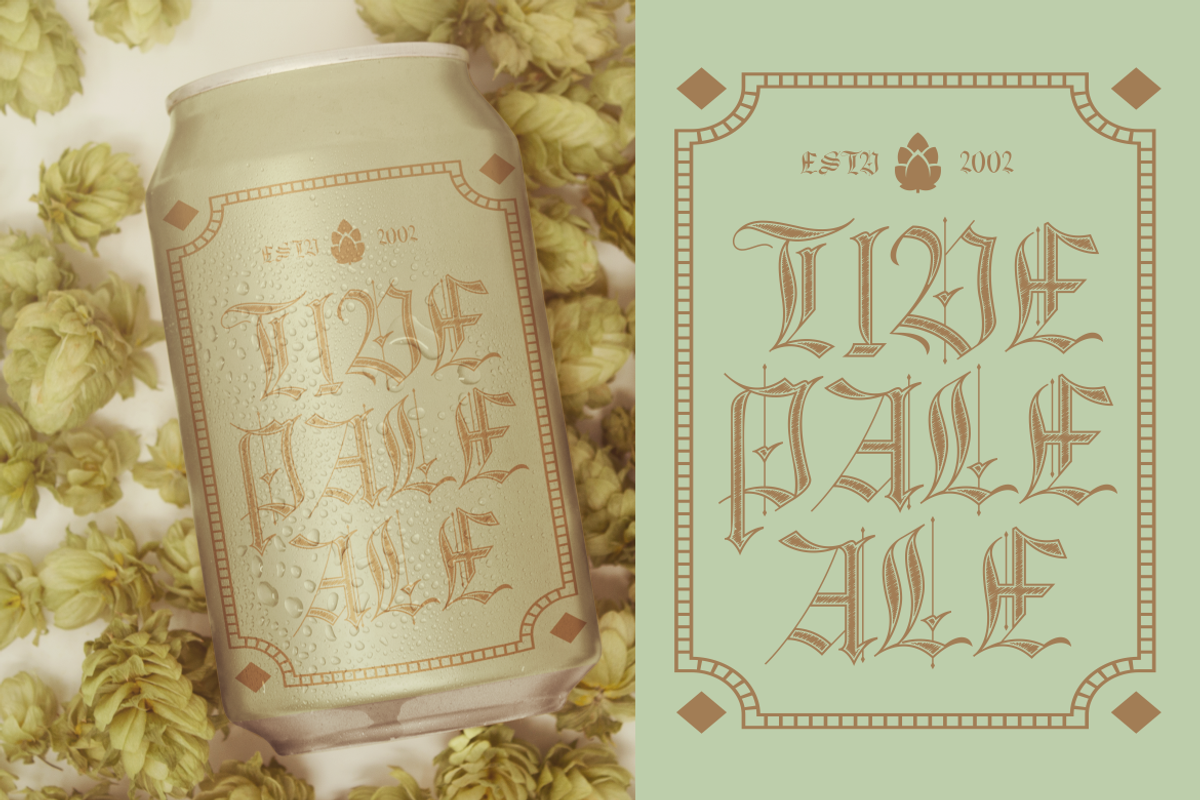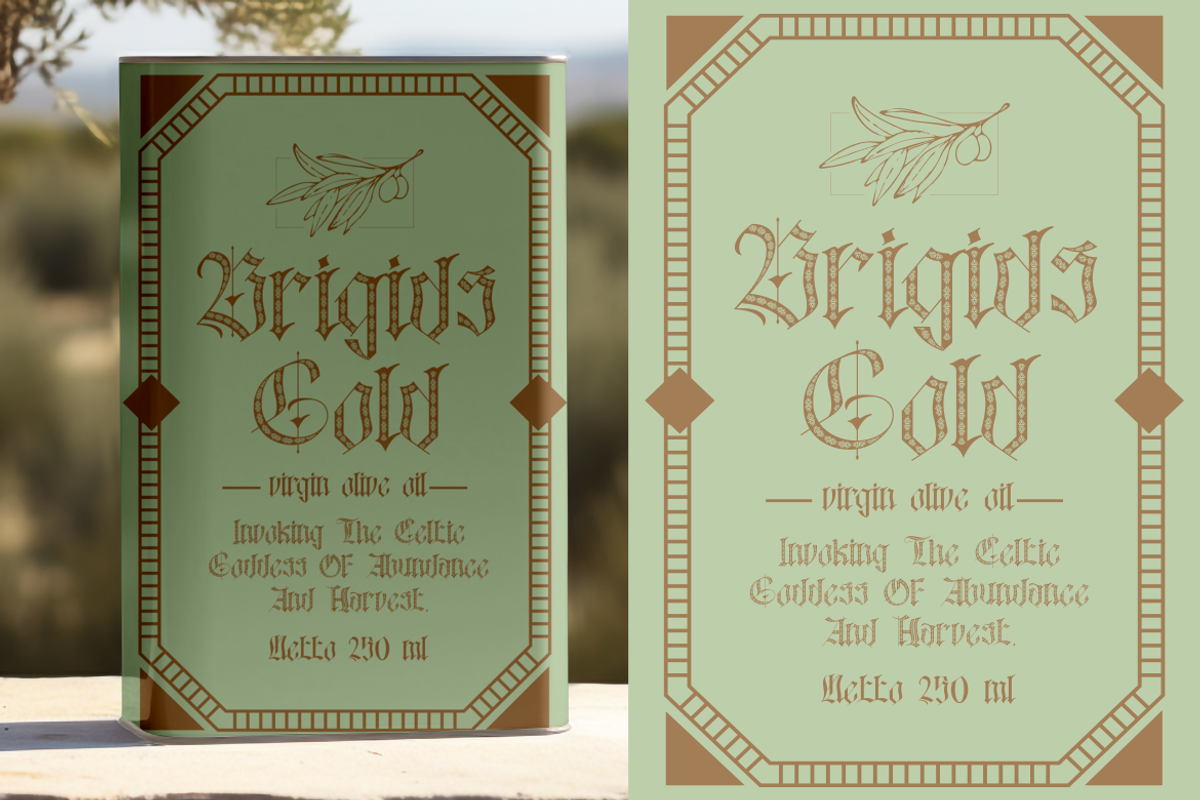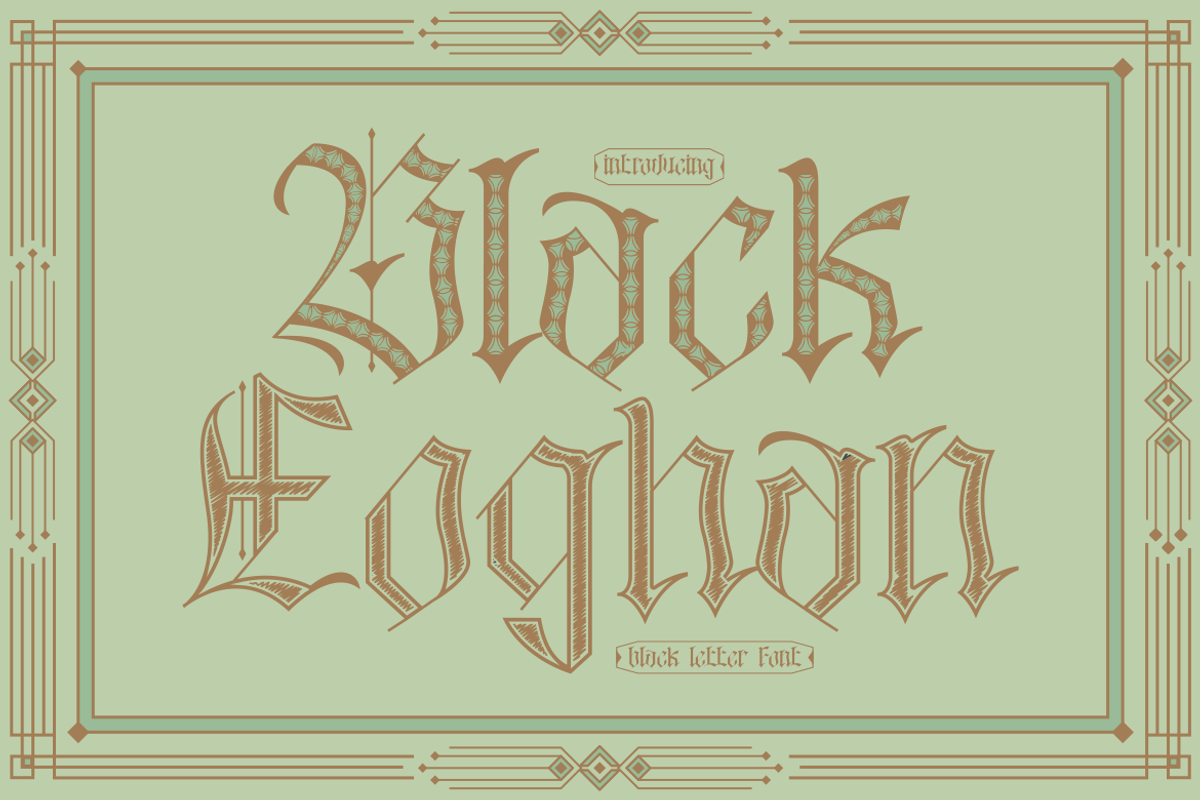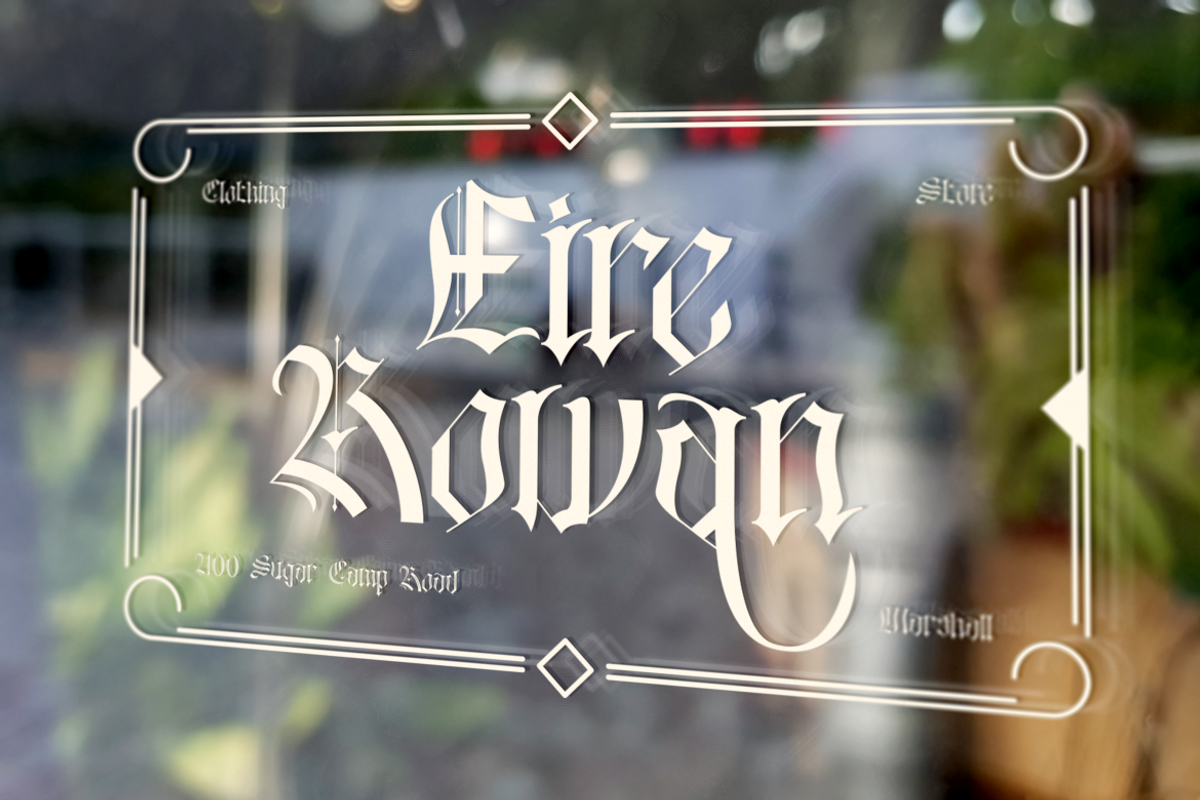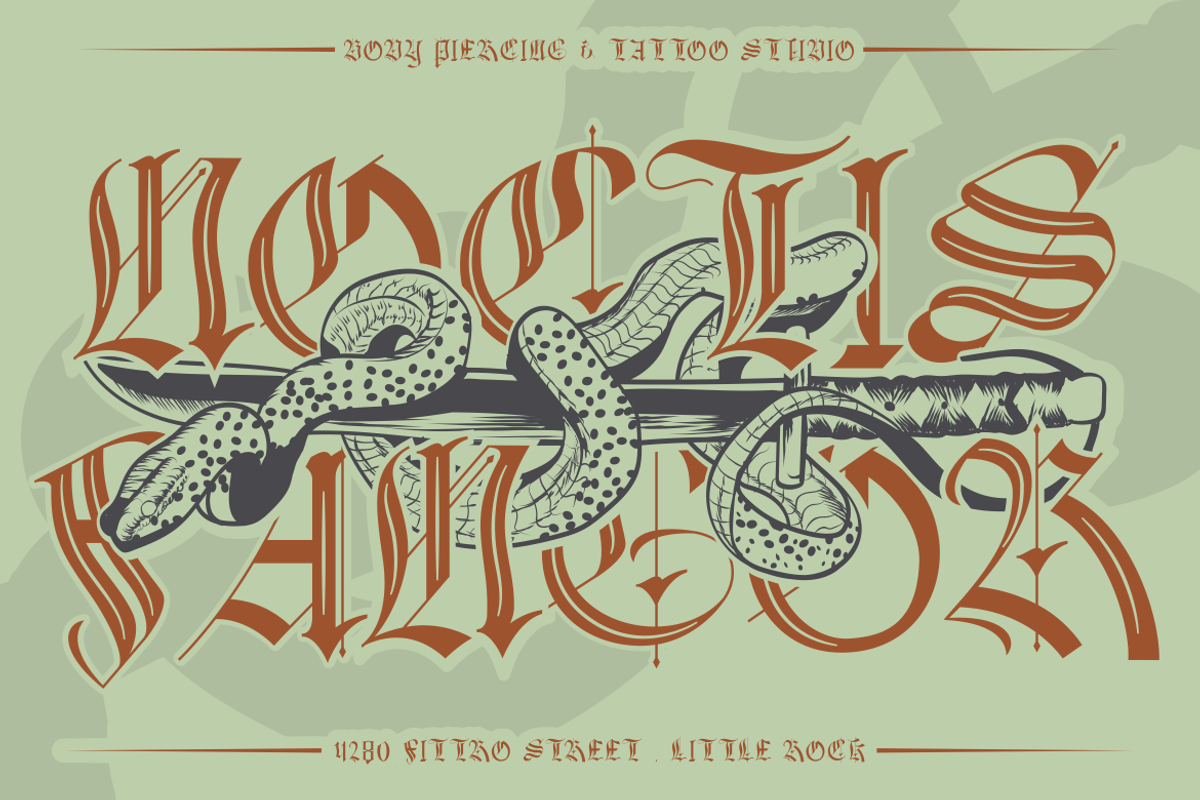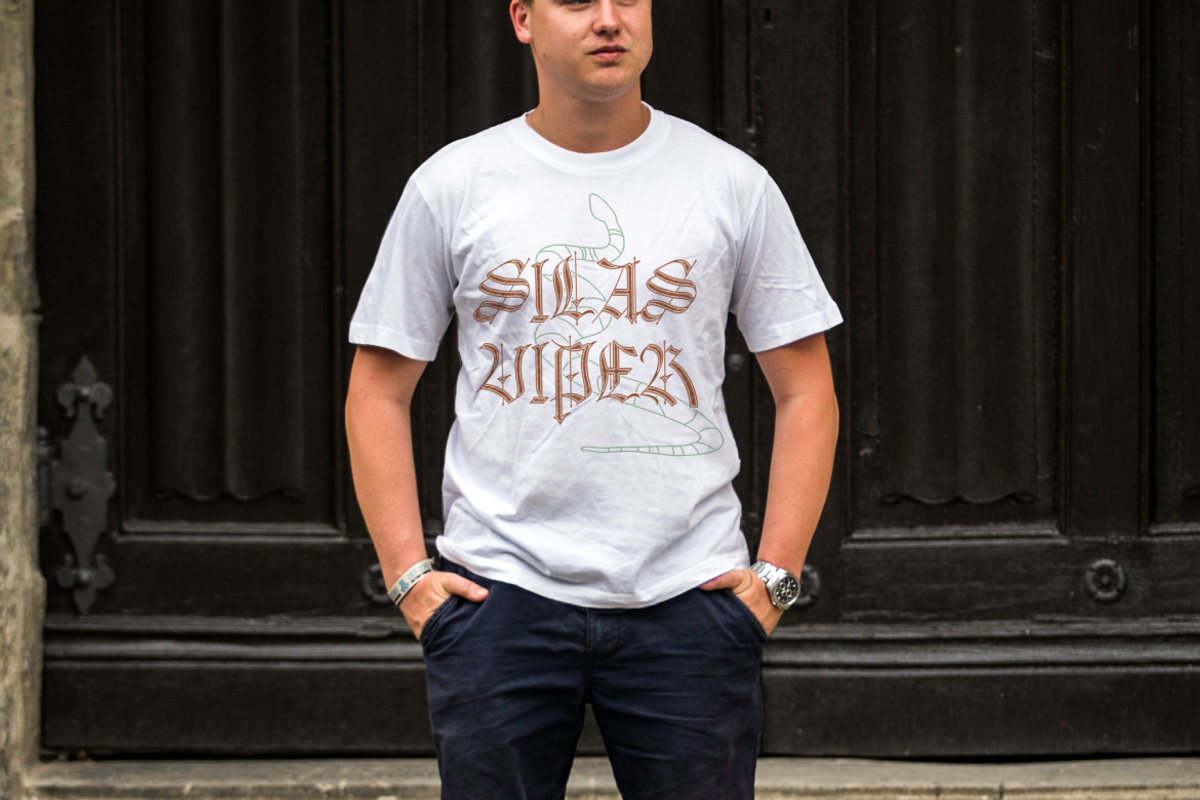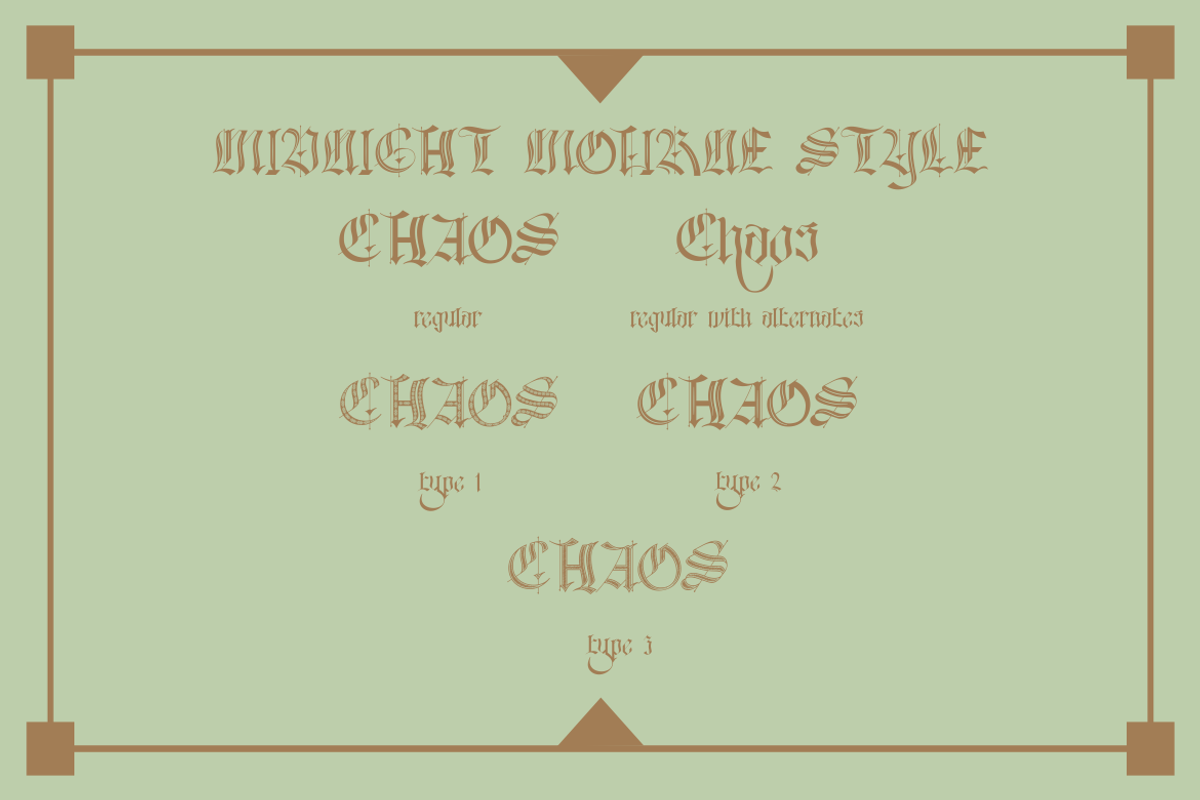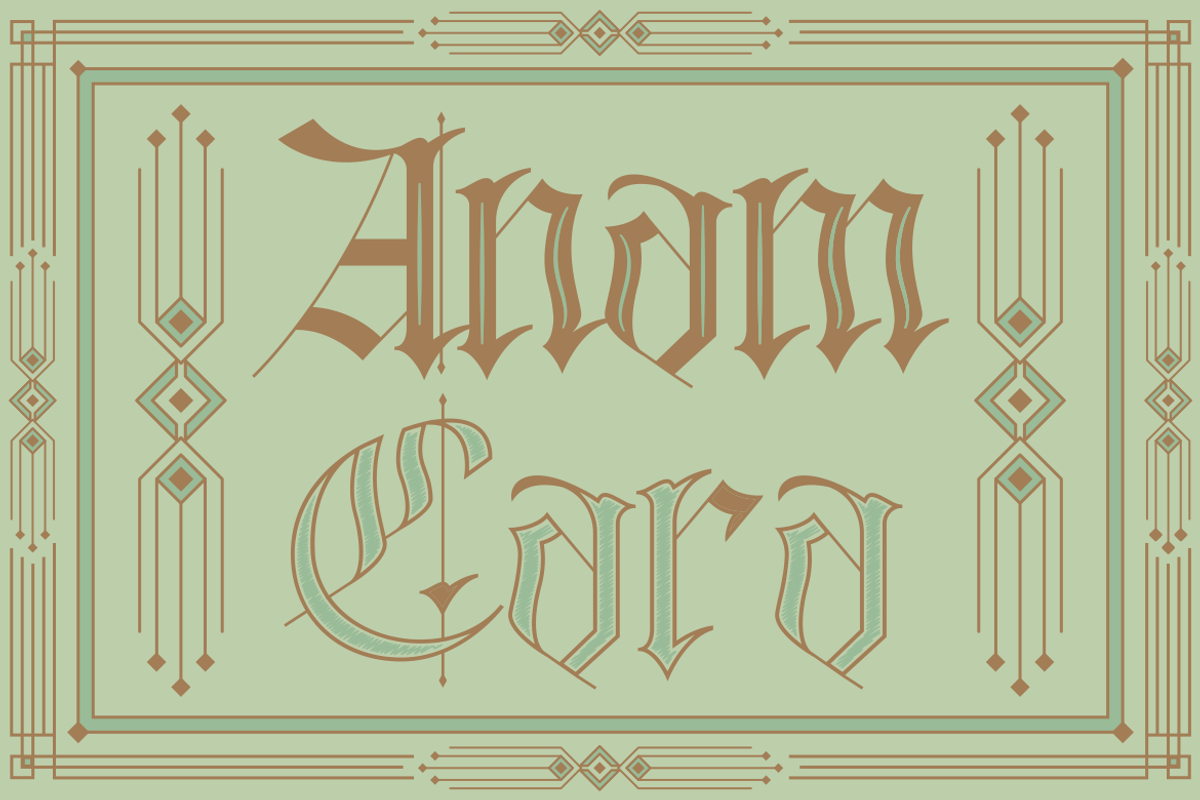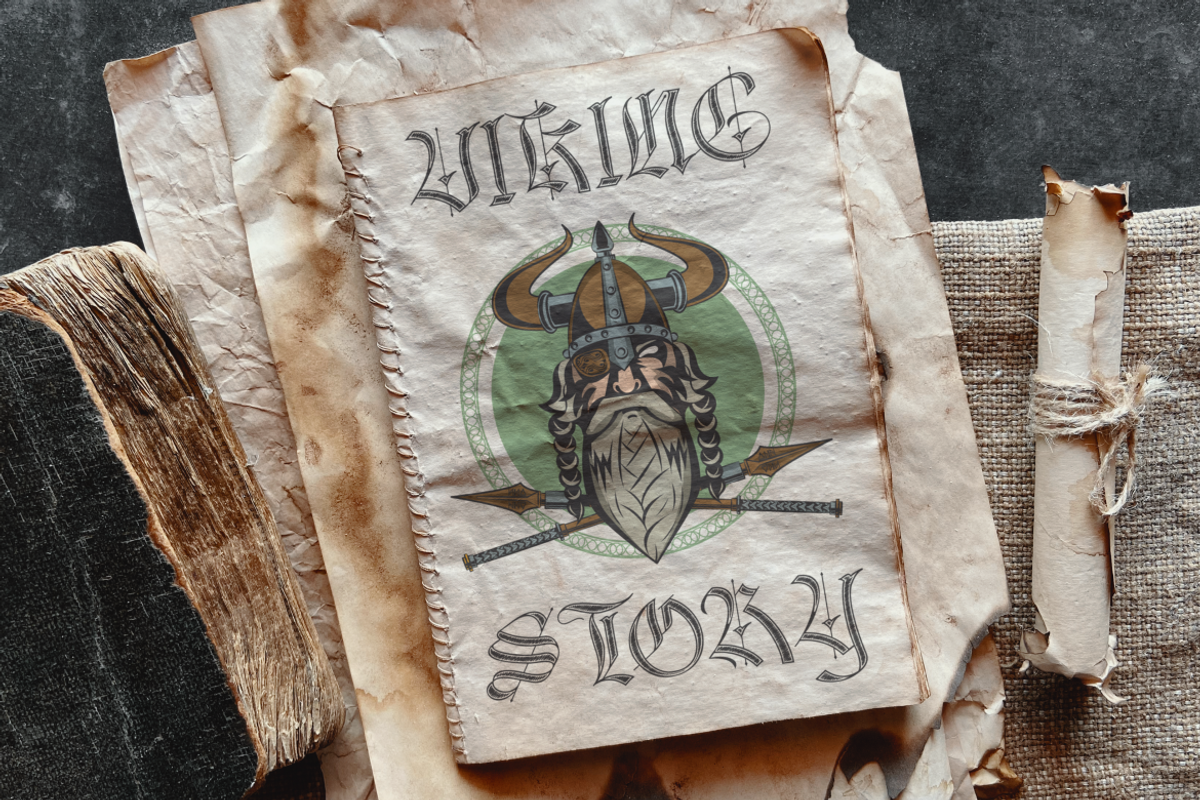
Black Eoghan Blackletter Font
Black Eoghan is a meticulously crafted blackletter font that bridges medieval elegance with modern edge. The font showcases a distinctive gothic structure, enriched by ornamental strokes and Celtic-inspired inlines that enhance its visual impact. Its character set includes both uppercase and lowercase letters with high contrast, angular serifs, and historical aesthetics. The decorative patterns embedded in some glyphs reflect Celtic tribal markings, making it a striking choice for projects that aim to feel ancient, mysterious, or powerful. Whether featured on a branded liquor label, tattoo studio signage, or Norse-inspired book covers, Black Eoghan commands attention and respect.
Each glyph in Black Eoghan is thoughtfully designed to preserve legibility while still exuding intricate artistry. The vertical rhythm and sharp ink traps lend a rugged yet refined tone, perfect for packaging, album artwork, movie posters, and ceremonial invitations. The vintage border system—seen in preview designs—further complements the font's regal aura. From craft beer cans to fantasy novel titles, this font transforms mundane text into majestic storytelling elements.